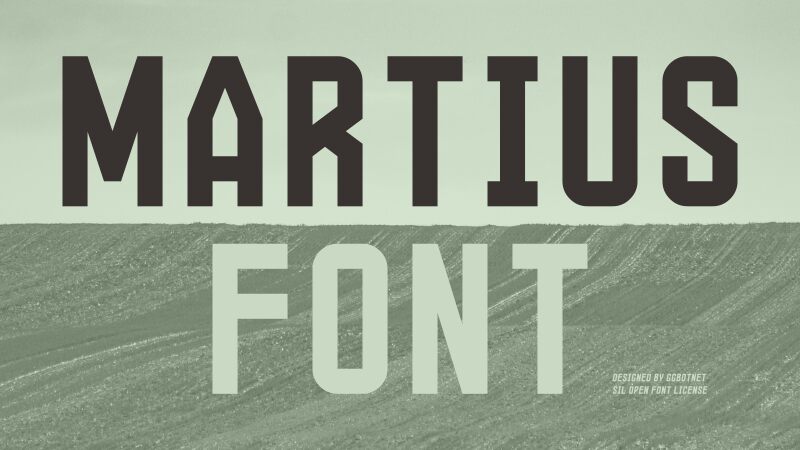
Martius
Martius font by GGBotNet is a condensed, geometric, and utilitarian design inspired by modernism. The structured and industrial monotone display typeface comes with the robust look of an alphabet that works coherently in all upper, lowercase, and mixed-case projects. Martius is characterized by a fixed stroke weight across its glyphs which results in a unique symmetry.
This free font would go very well on construction logotypes or any design catering to builders or architects due to its rigid character structure. The font can also be fitting for headlines in magazines, posters, product packaging, industrial uses, wayfinding systems, tickets/badges designing as well as typography artworks for books.